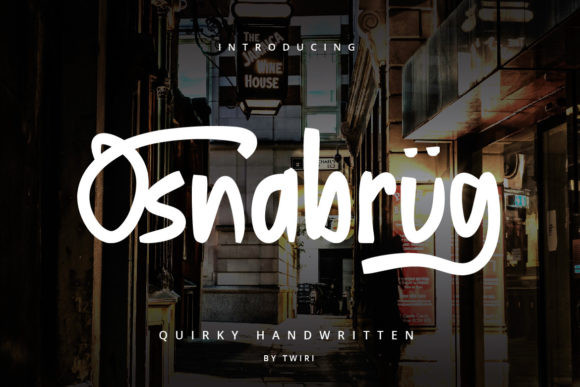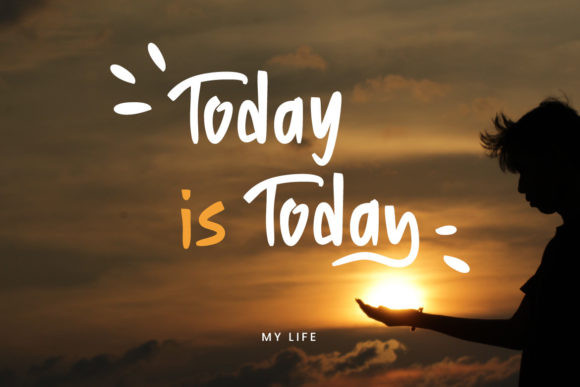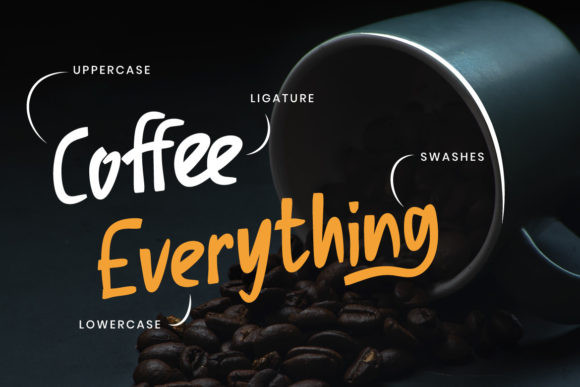
Osnabrug Font
Osnabrug is a modern display font that is readable, bold and stylish. It is defined by smooth curves and is perfect for fashion branding or editorial designs. Add it confidently to your projects, and you will love the results.